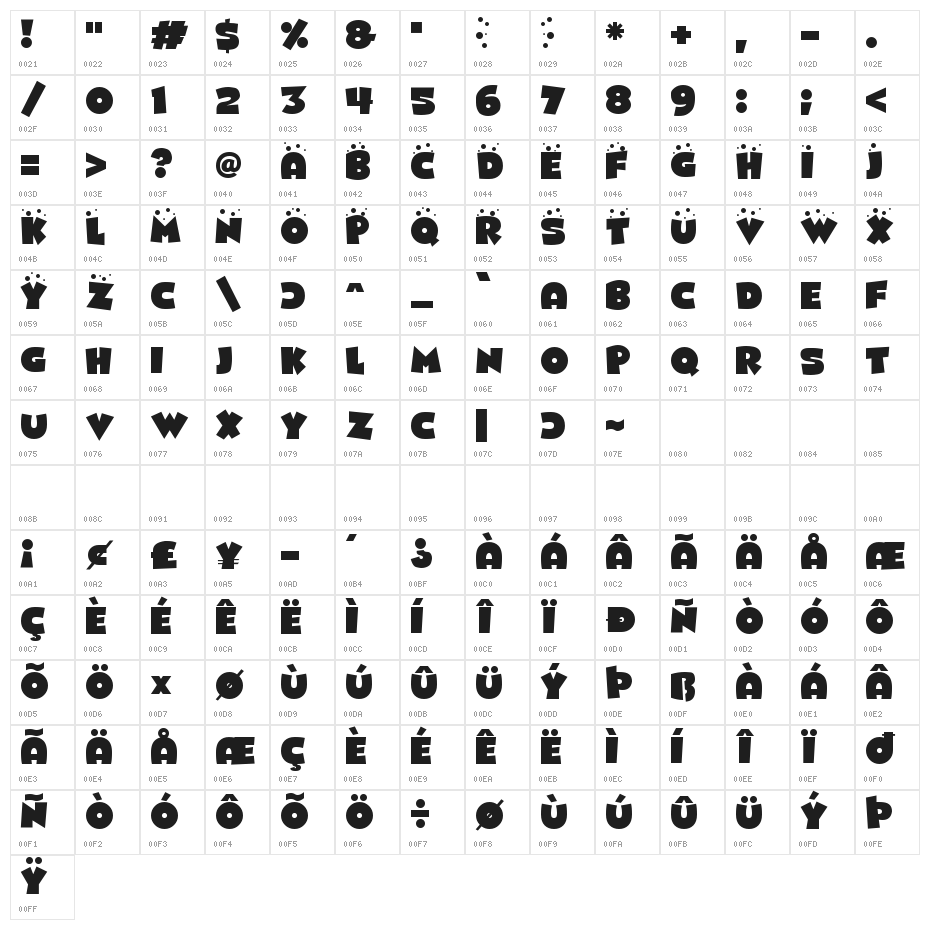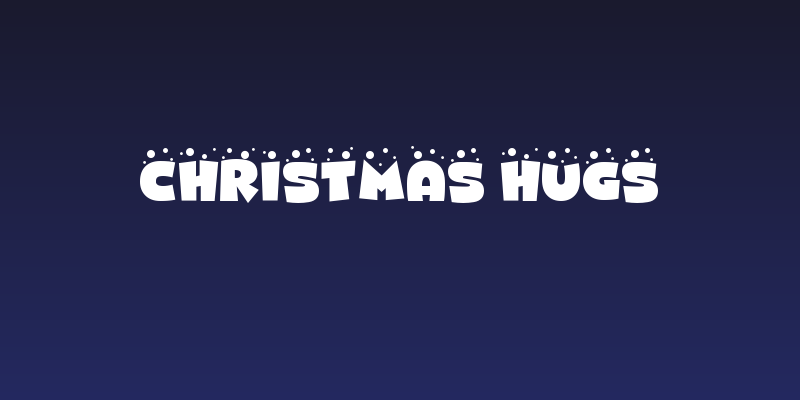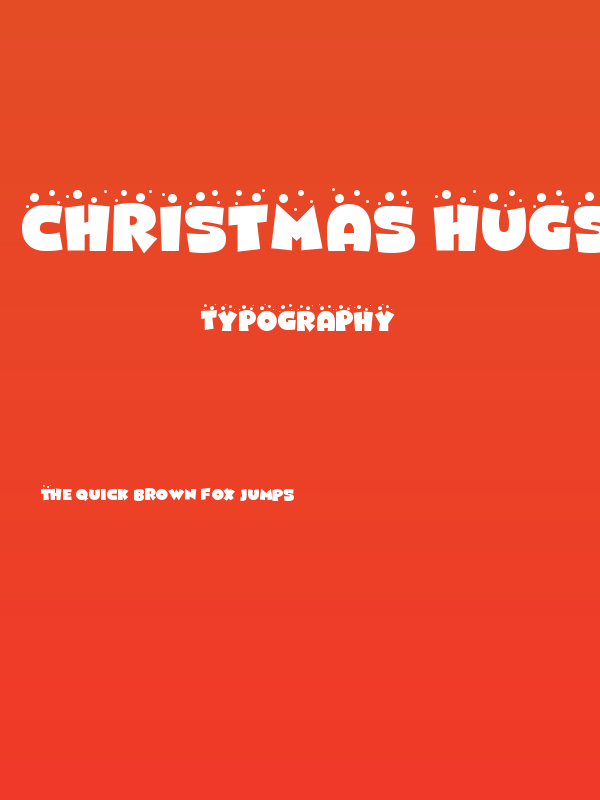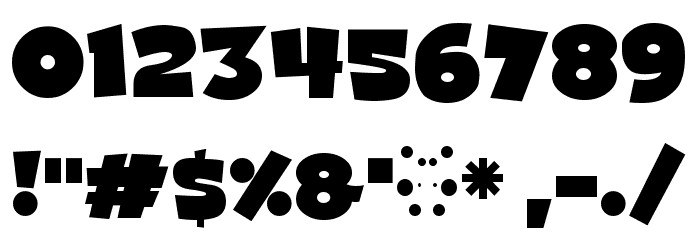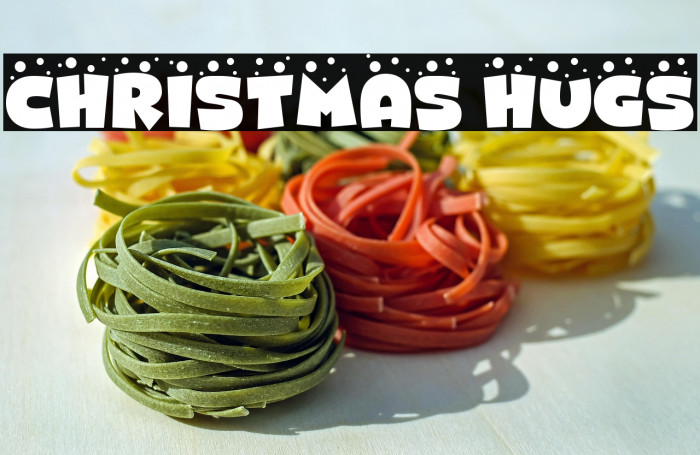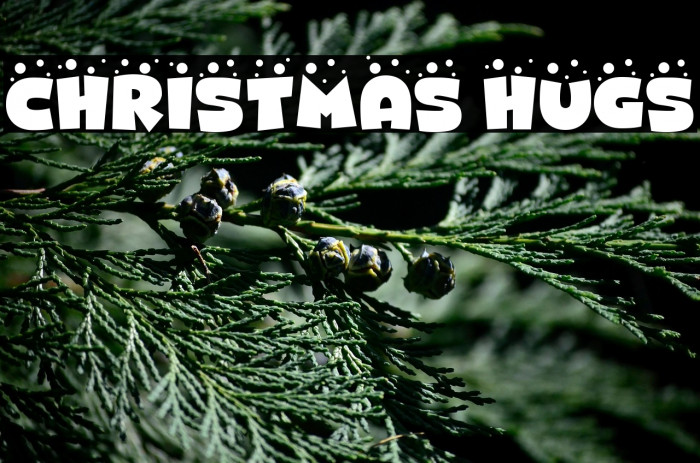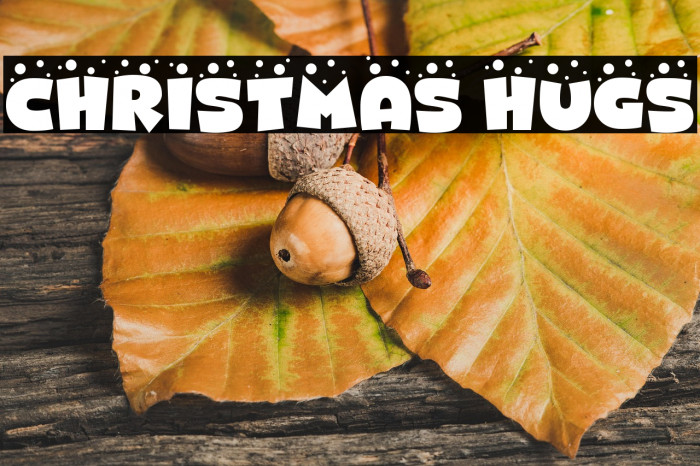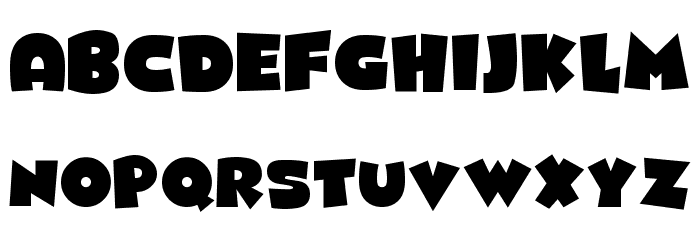
CHRISTMAS HUGS Font
CHRISTMAS HUGS Description
This playful and bold font features a whimsical design with rounded, chunky letters that are adorned with small circular accents, giving it a festive and cheerful appearance. The uppercase letters are uniform in height, while the numbers and special characters maintain the same playful style. The font's unique character is enhanced by its bold weight and slightly condensed width, making it ideal for eye-catching designs. The contrast in stroke thickness is medium, providing a balanced look that is both fun and legible. Its decorative style is perfect for holiday-themed projects, children's books, or any design that requires a touch of joy and celebration.
| Proposed Projects | Ideal for holiday cards, children's book covers, festive posters, and playful branding. |